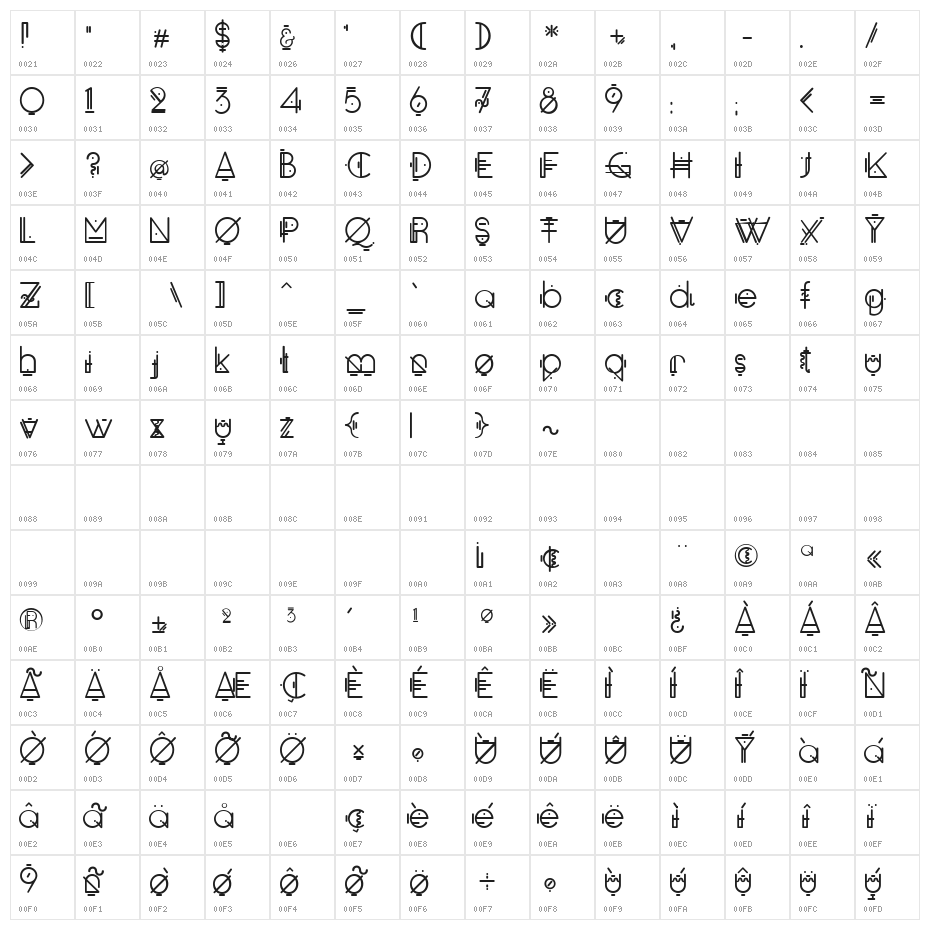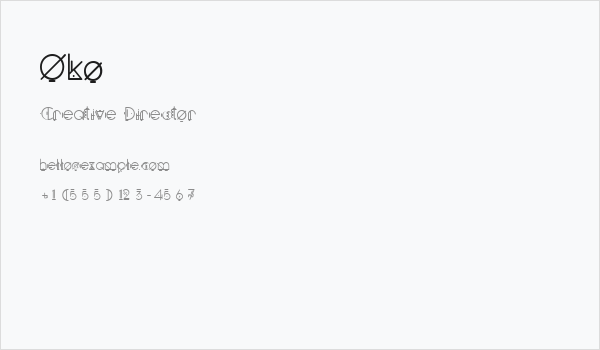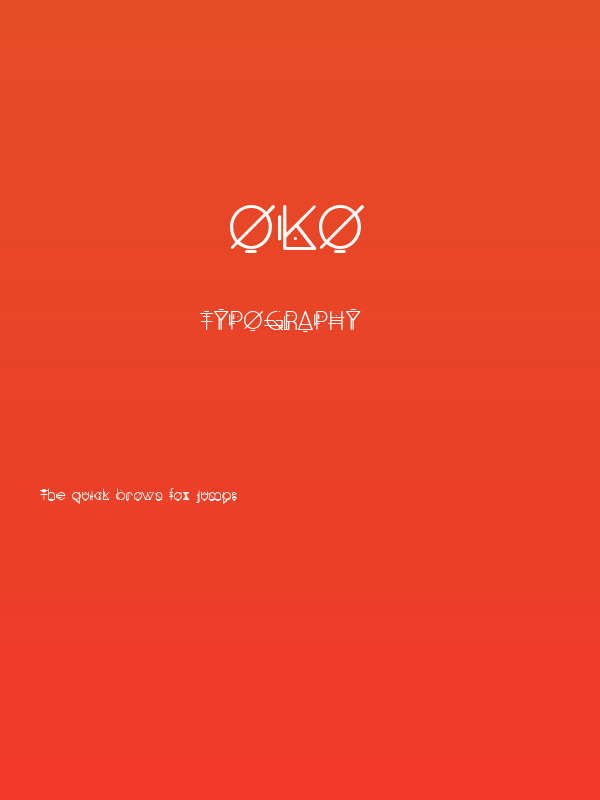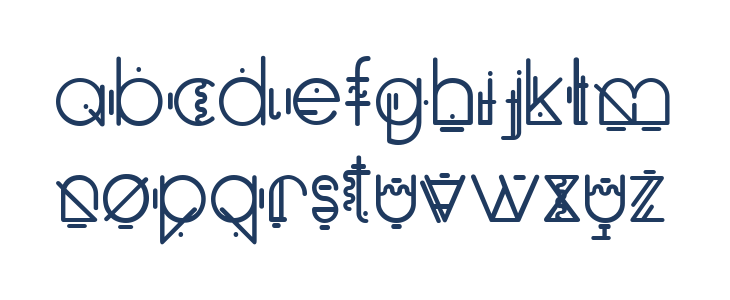
Oko Font
Oko Description
This font exhibits a highly decorative and geometric style, characterized by its unique use of lines and dots to create a futuristic and abstract appearance. Each character is crafted with a combination of straight lines, circles, and dots, giving it a distinct and artistic look. The uppercase and lowercase letters maintain a consistent design theme, while the numbers and special characters follow suit, ensuring uniformity across the font. The intricate design elements make it stand out, offering a modern and avant-garde aesthetic that is both eye-catching and innovative.
| Overall Style | Modern, Futuristic |
| Proposed Projects | Ideal for modern branding, sci-fi themed projects, artistic posters, and digital media. |